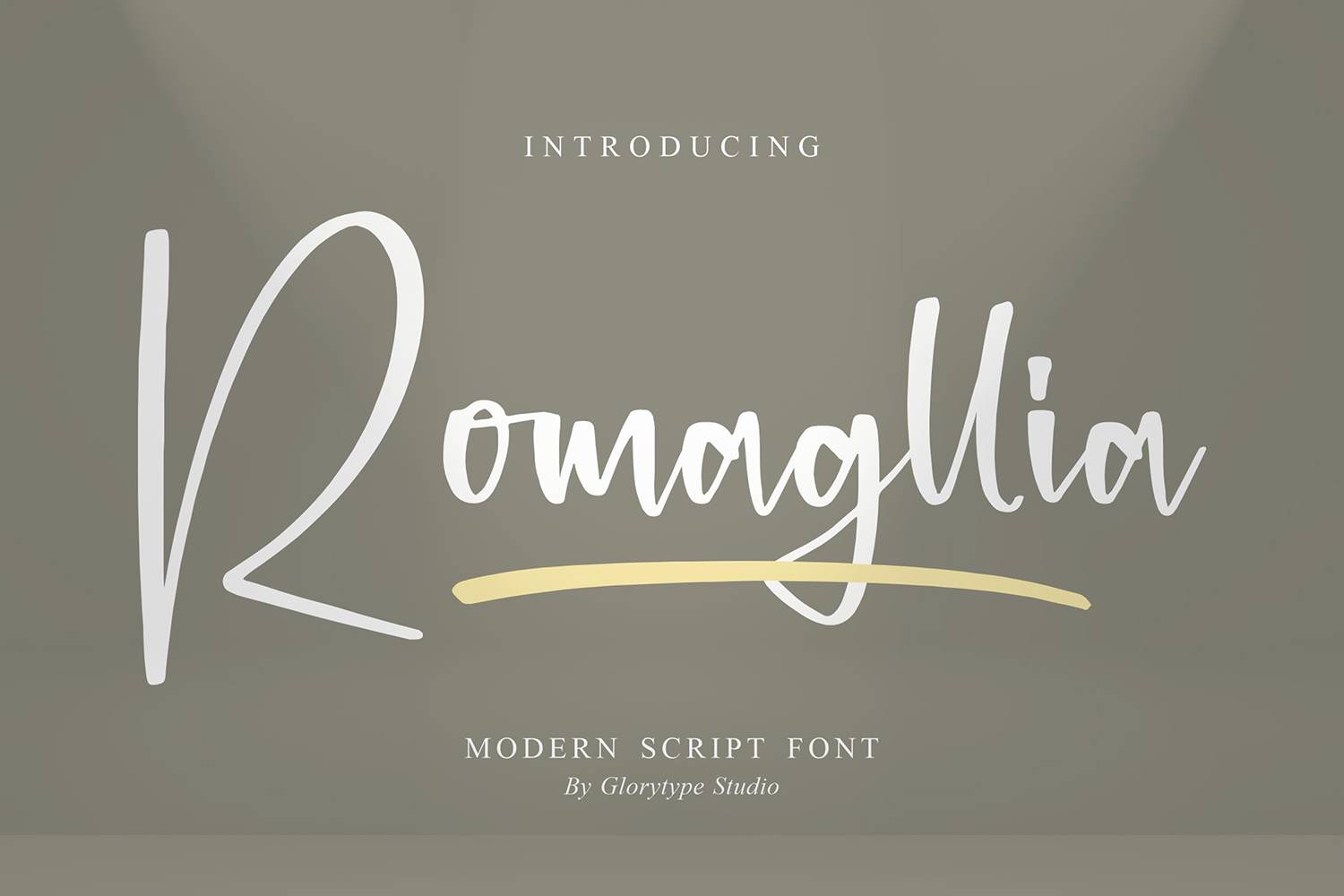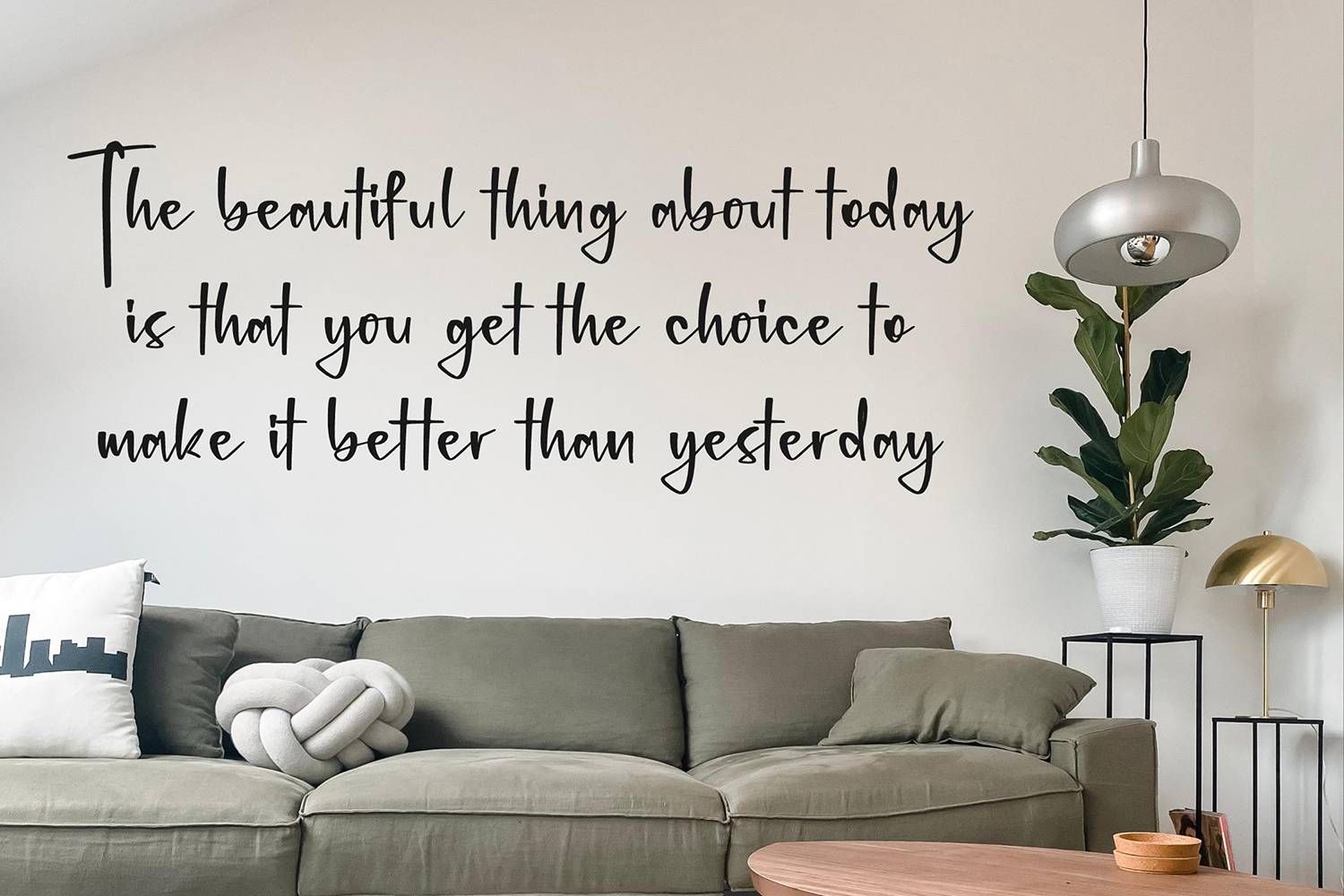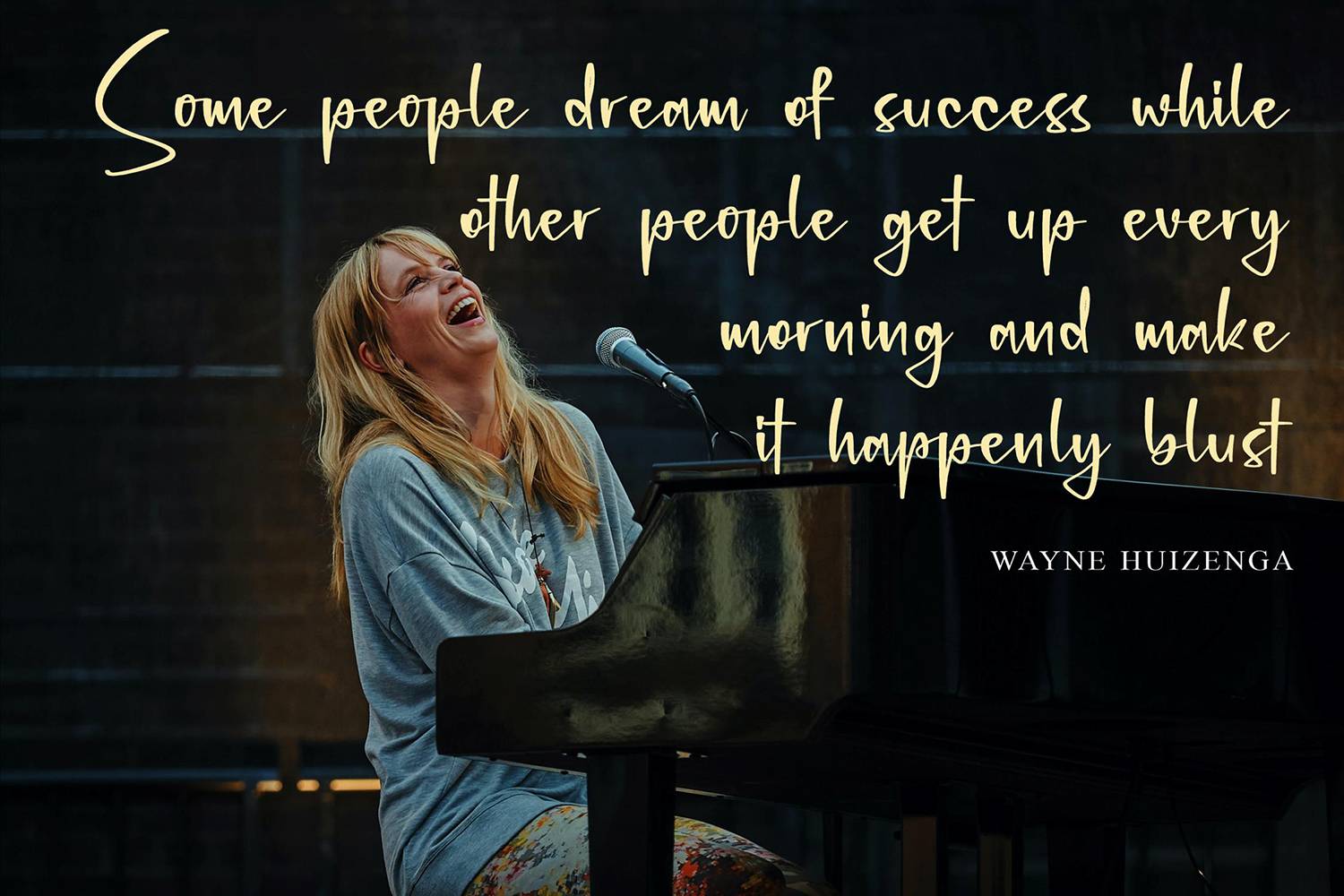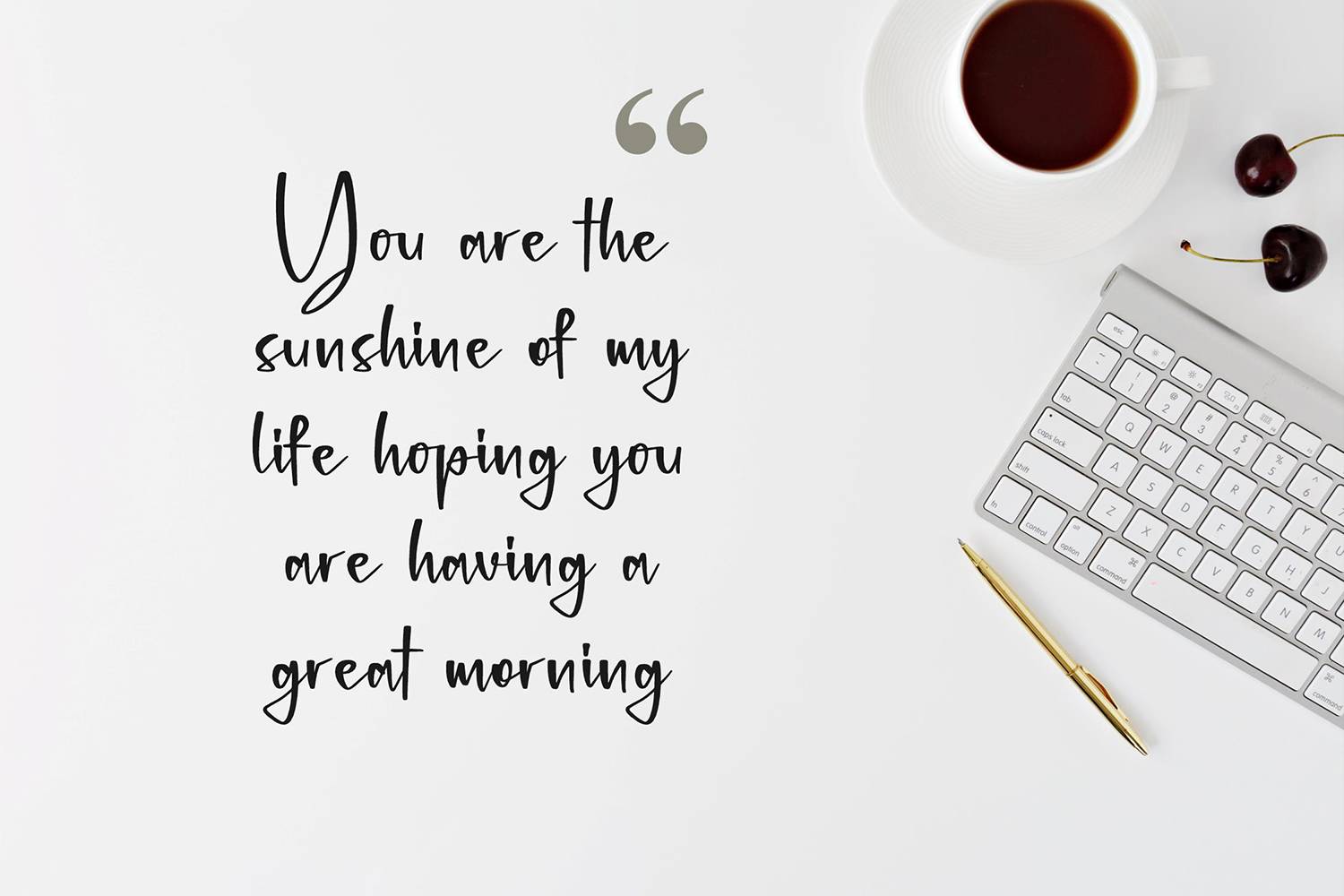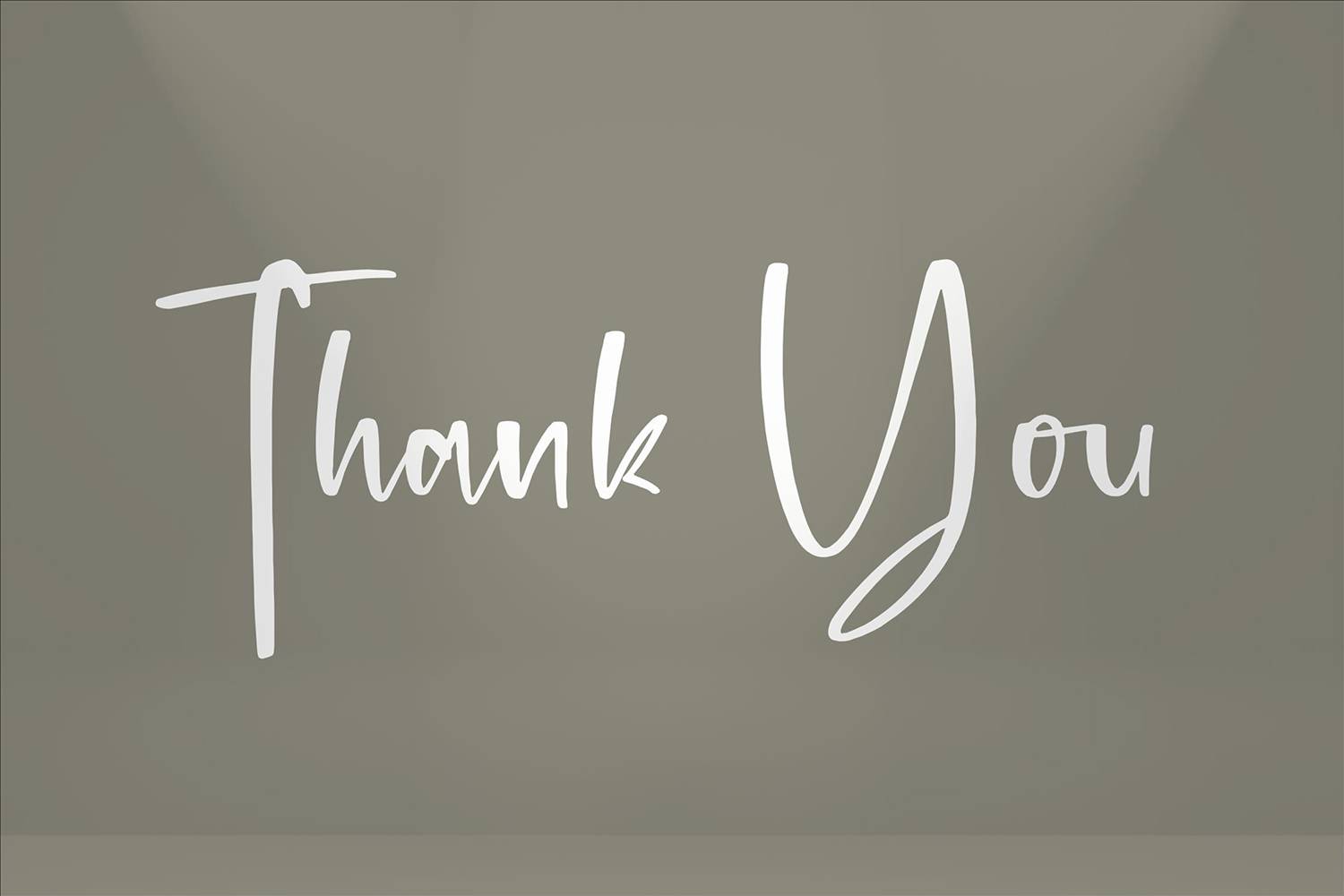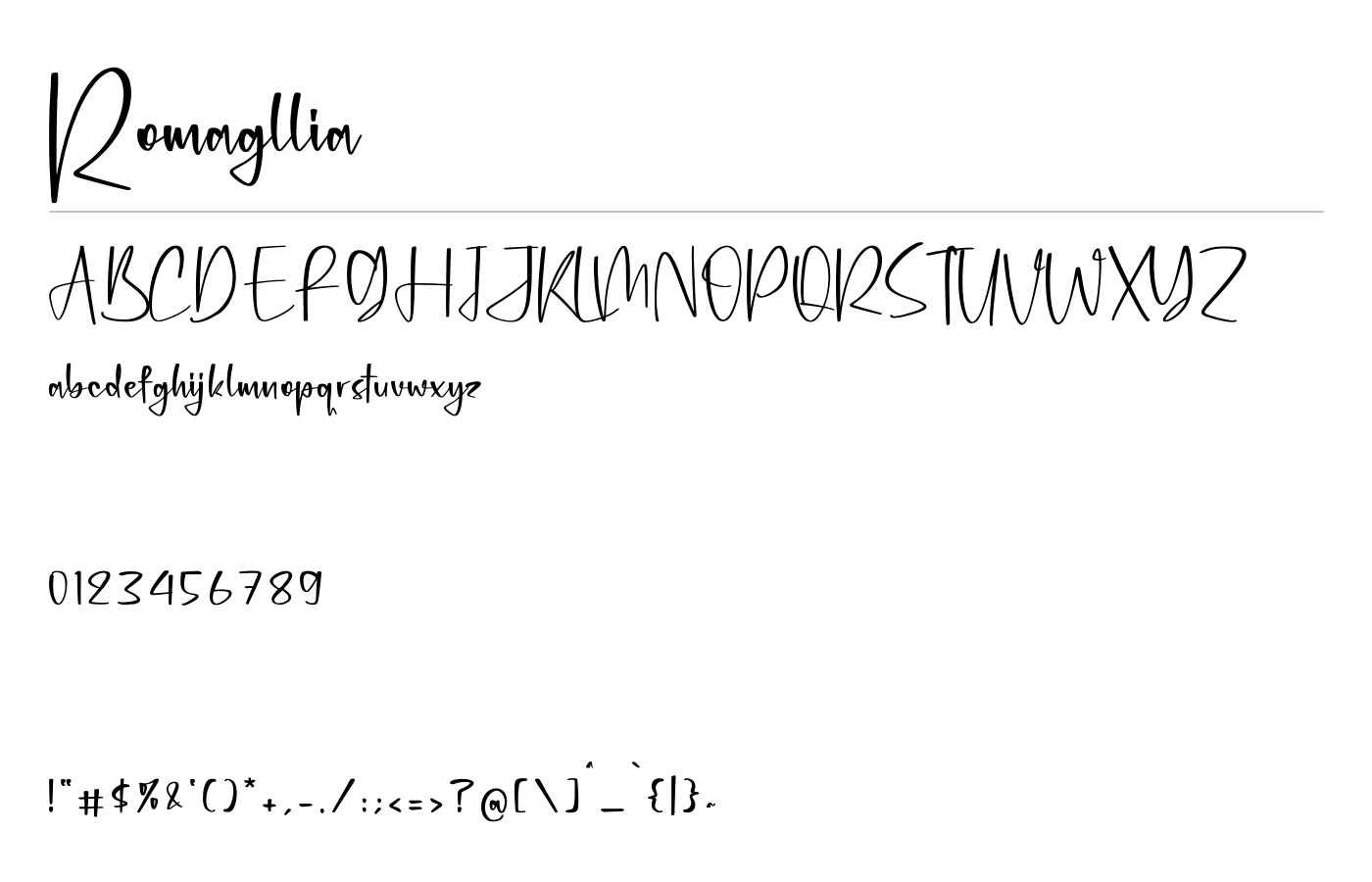
Romagllia is a playful and elegant handwritten script font with a light, airy feel created by its tall, slender letterforms and casual stroke variations. Its flowing, natural style with distinct uppercase and lowercase characters makes it ideal for adding a personal, creative touch to branding, invitations, and modern editorial design. This font works especially well for projects seeking a charming, approachable vibe without sacrificing sophistication.
Romagllia Font